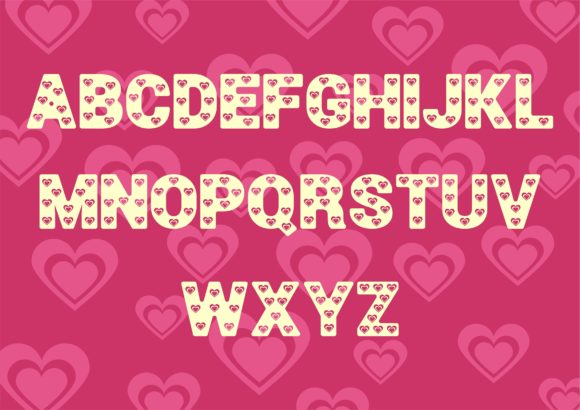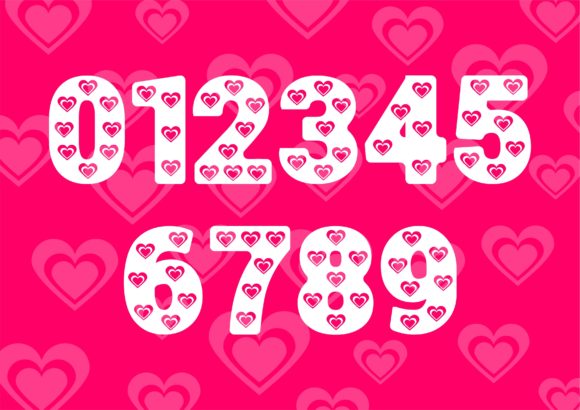
Introducing Hearty Smarty Font: The Ultimate Love-Infused Decorative Font
Are you looking for a font that speaks to your heart? Do you want to add a touch of love and romance to your designs? Look no further than Hearty Smarty Font, a beautiful heart-shaped decorative font that’s perfect for any occasion when you need a little extra love in your life.
What is Hearty Smarty Font?
Hearty Smarty Font is a unique and lovely font that’s designed to capture the essence of love and romance. With its heart-shaped letters, this font is sure to make your designs stand out and convey your emotions in a creative and visually appealing way.
Perfect for Romantic Occasions
Hearty Smarty Font is perfect for a variety of romantic occasions, including Valentine’s Day designs, wedding invitations, anniversary cards, and more. Whether you’re a designer, crafty DIY enthusiast, or simply someone who loves to create, this font is sure to inspire your creativity and help you express your feelings in a beautiful and meaningful way.
With Hearty Smarty Font, the design possibilities are endless! You can use it to create:
• Social media posts that capture the hearts of your followers
• Valentine’s Day designs that will make your loved ones feel special
• Wedding invitations that set the tone for a romantic and unforgettable celebration
• Birthday cards that are as sweet as the birthday boy or girl
• Custom gifts, such as mugs, t-shirts, and phone cases, that show you care
Why Choose Hearty Smarty Font?
So, why choose Hearty Smarty Font over other decorative fonts? Here are just a few reasons why this font stands out:
• Unique and eye-catching design: Hearty Smarty Font is unlike any other font out there. Its heart-shaped letters are sure to grab attention and make your designs stand out.
• High-quality: Hearty Smarty Font is a high-quality font that’s designed to look great in any design.
• Versatile: This font can be used for a wide range of design projects, from digital designs to print materials.
Tips for Using Hearty Smarty Font
Here are a few tips for using Hearty Smarty Font in your designs:
• Pair it with a simple font: Hearty Smarty Font is a decorative font, so it’s best to pair it with a simple font to balance out your design.
• Experiment with colors: This font looks great in a variety of colors, so don’t be afraid to experiment and find the perfect color scheme for your design.
• Use it sparingly: While Hearty Smarty Font is a beautiful font, it can be overwhelming if used too much. Use it sparingly to add a touch of love and romance to your design.
Hearty Smarty Font is a beautiful and unique decorative font that’s perfect for any occasion when you need a little extra love in your life. With its heart-shaped letters and endless design possibilities, this font is sure to inspire your creativity and help you express your feelings in a beautiful and meaningful way. So why wait? Download Hearty Smarty Font today and start creating designs that capture the hearts of those around you!